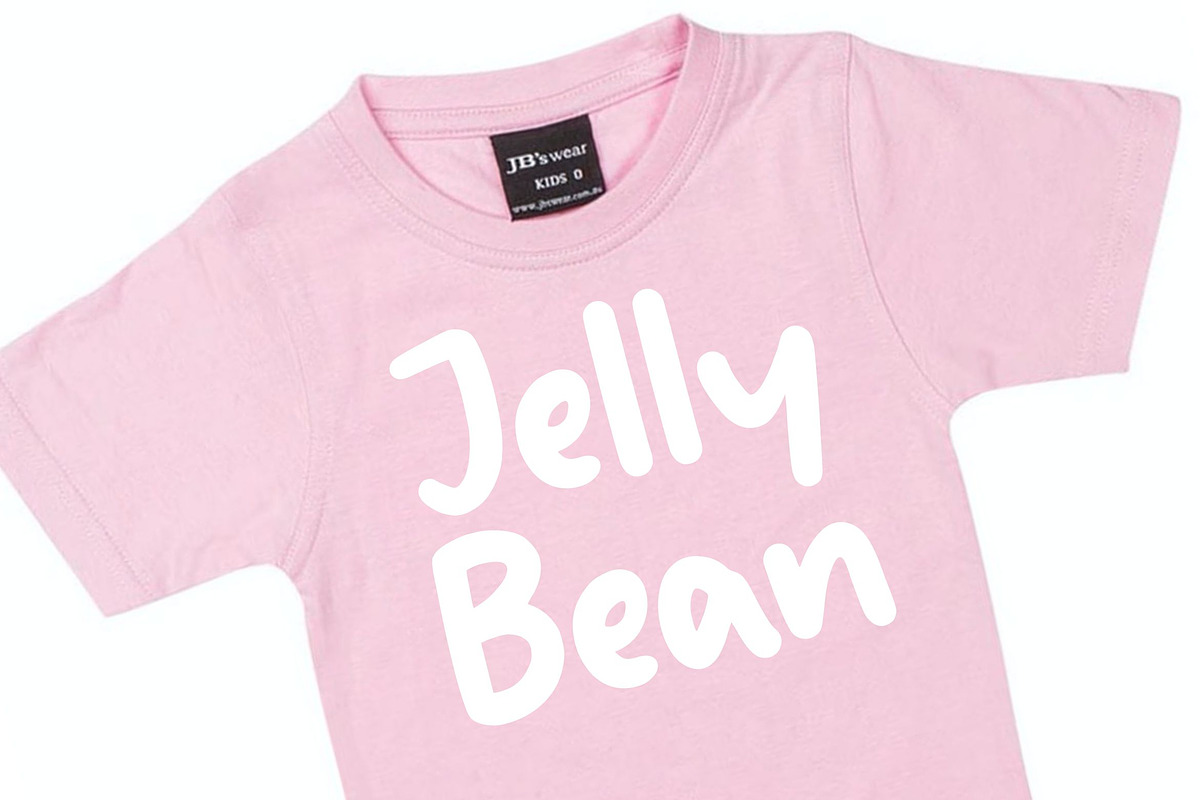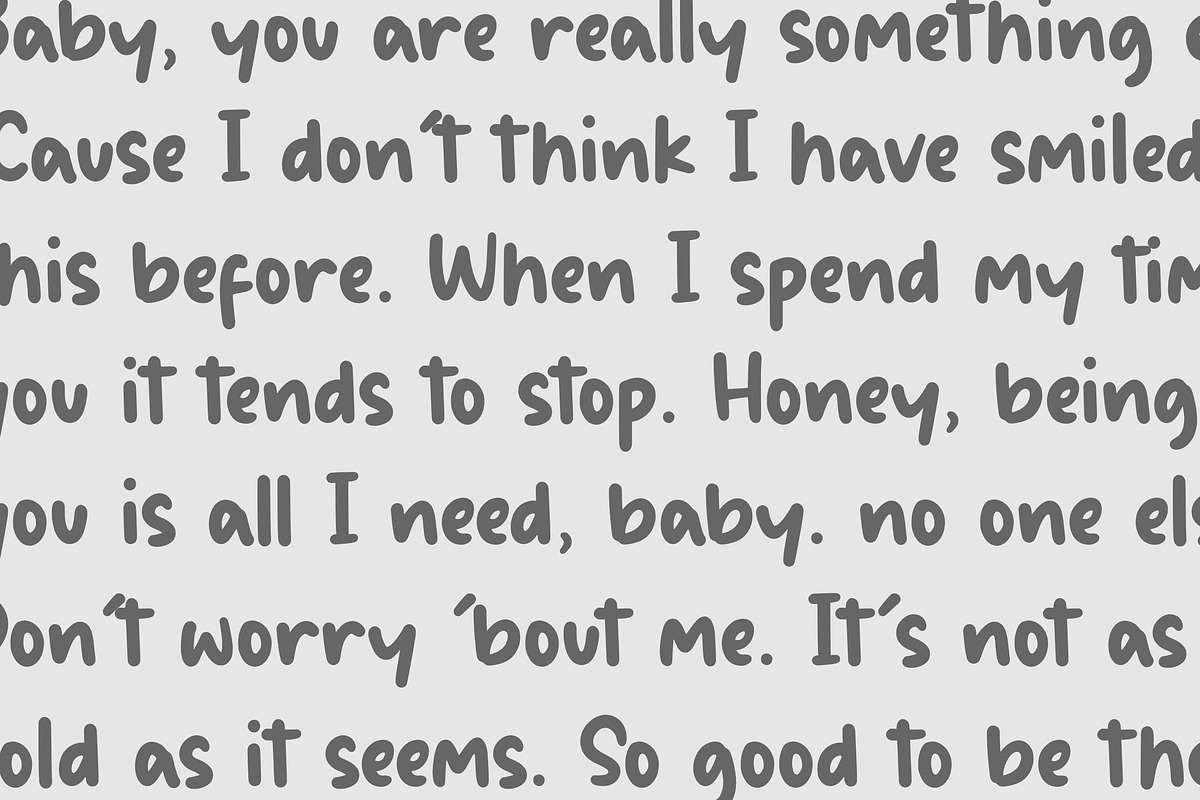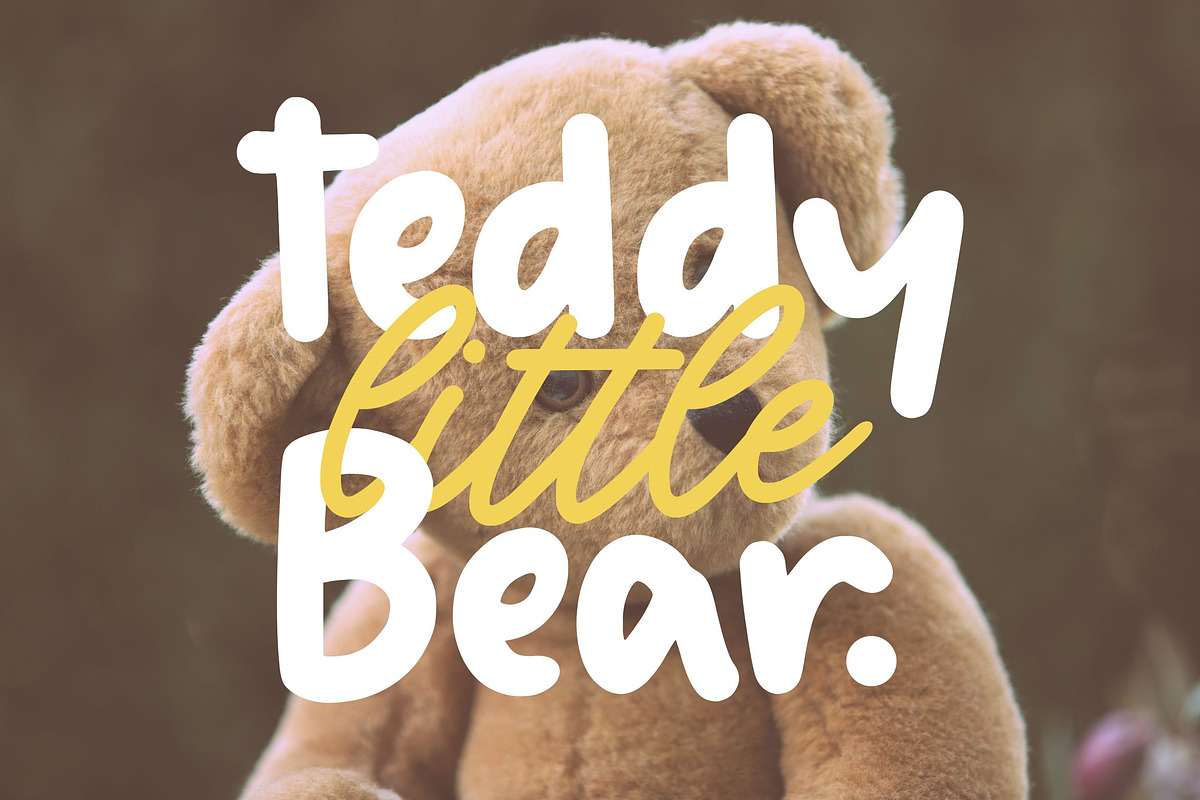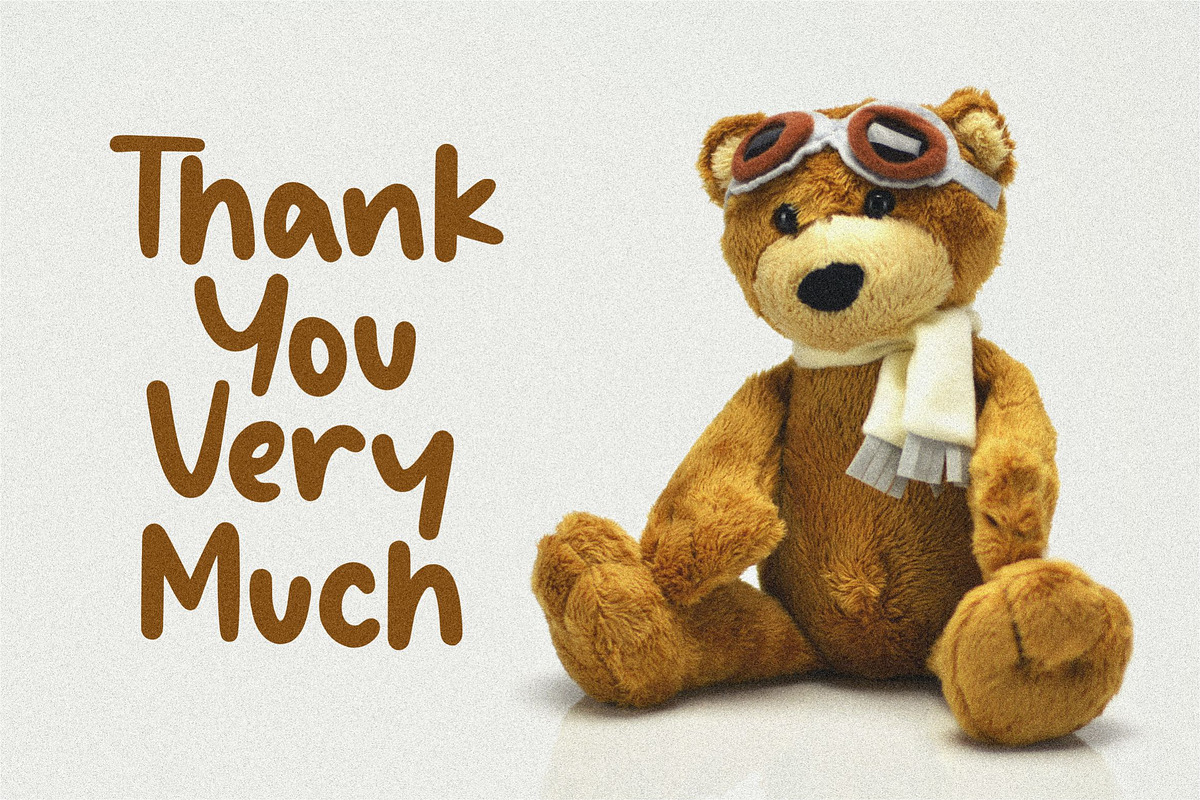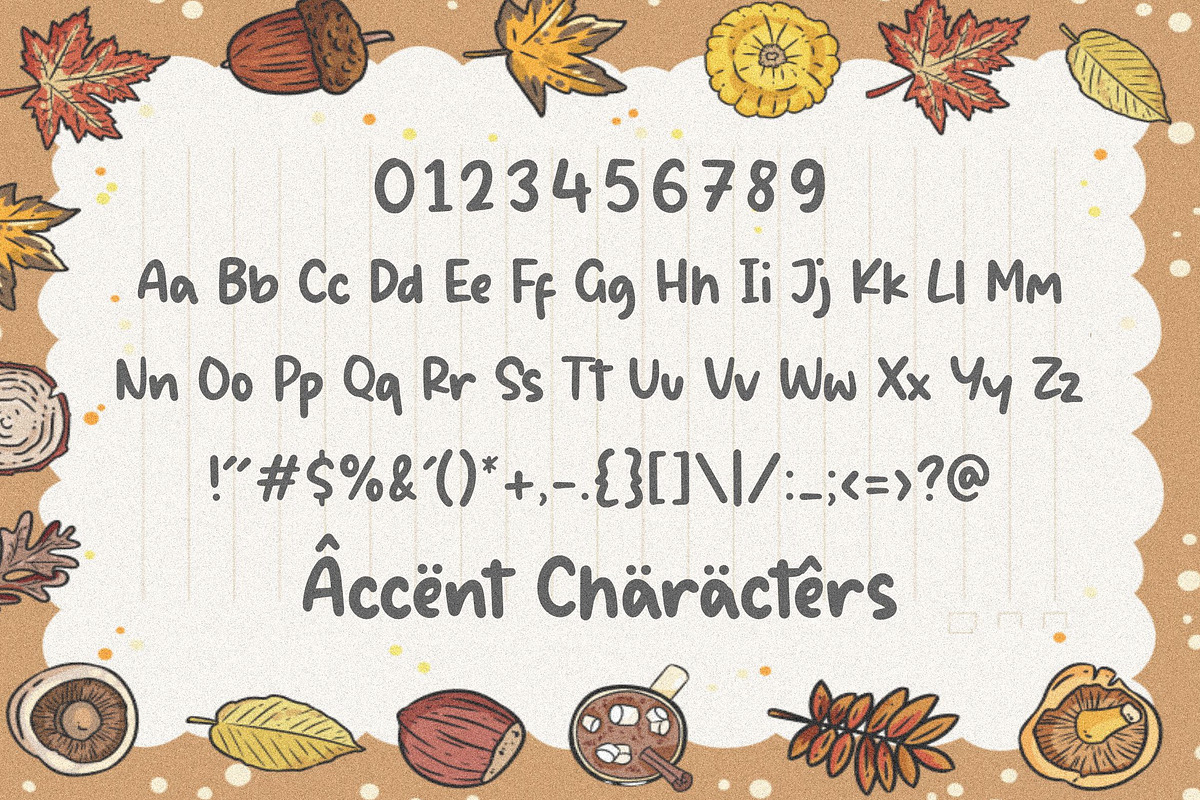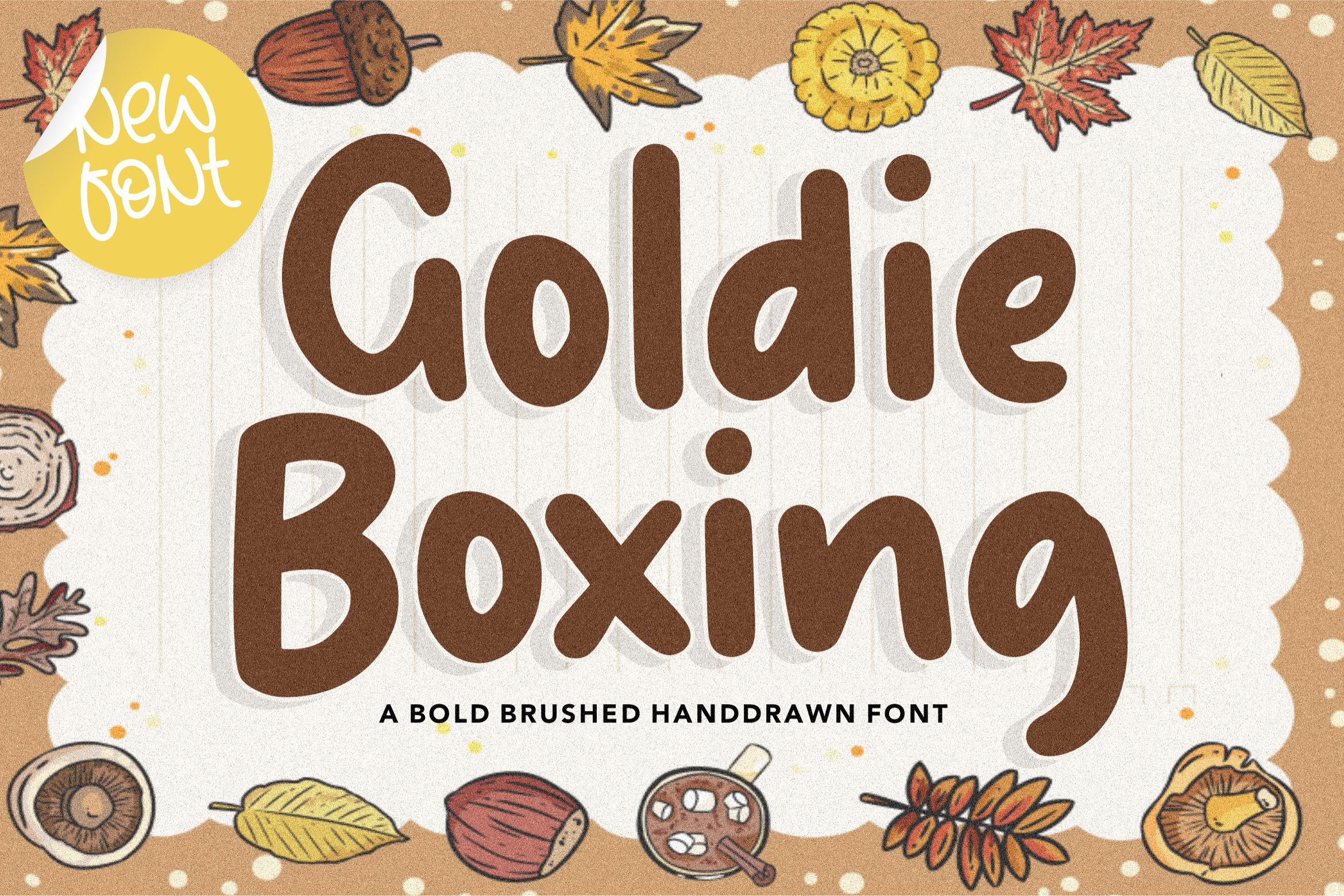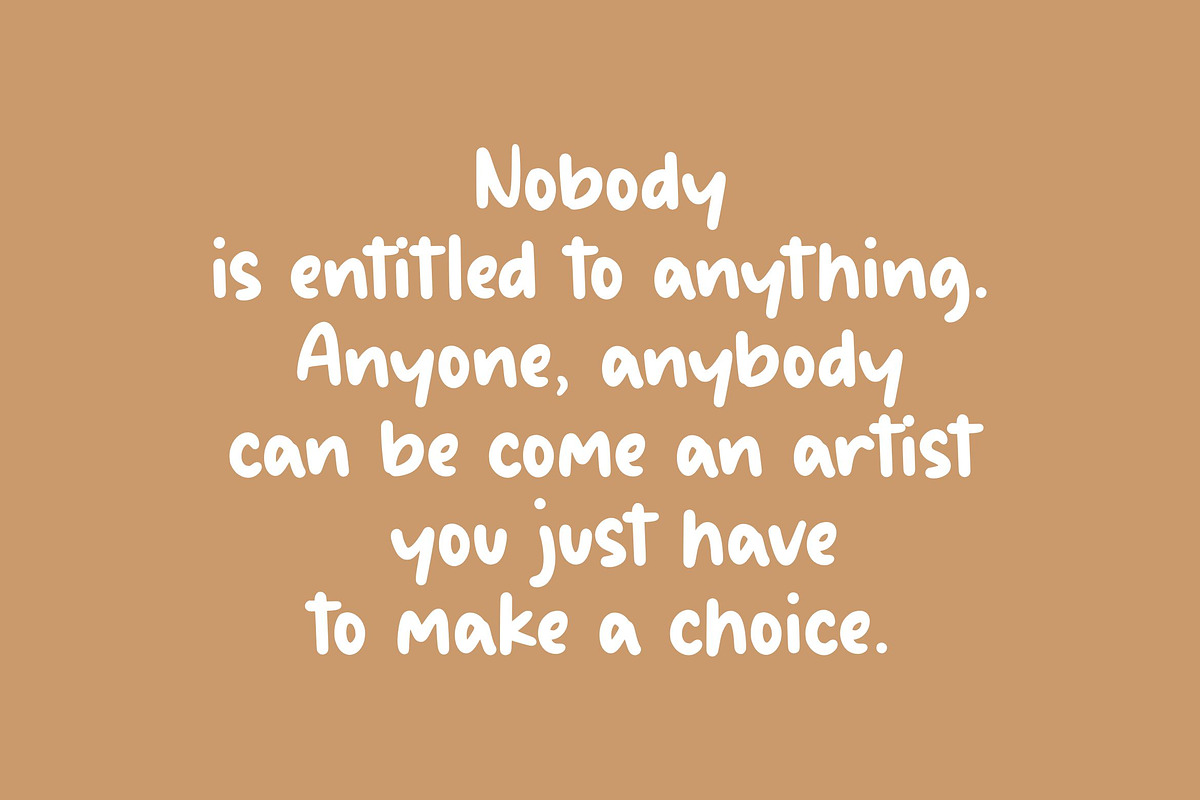
Goldie Boxing - Bold Brushed Font
Proudly Present, Goldie Boxing Font
Goldie Boxing is a bold display font with an autumn theme. Add this chunky lettered font to your designs and notice how it makes them come alive!